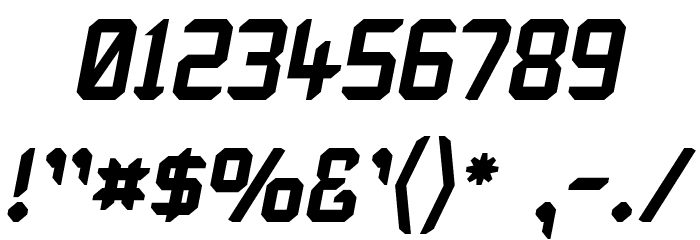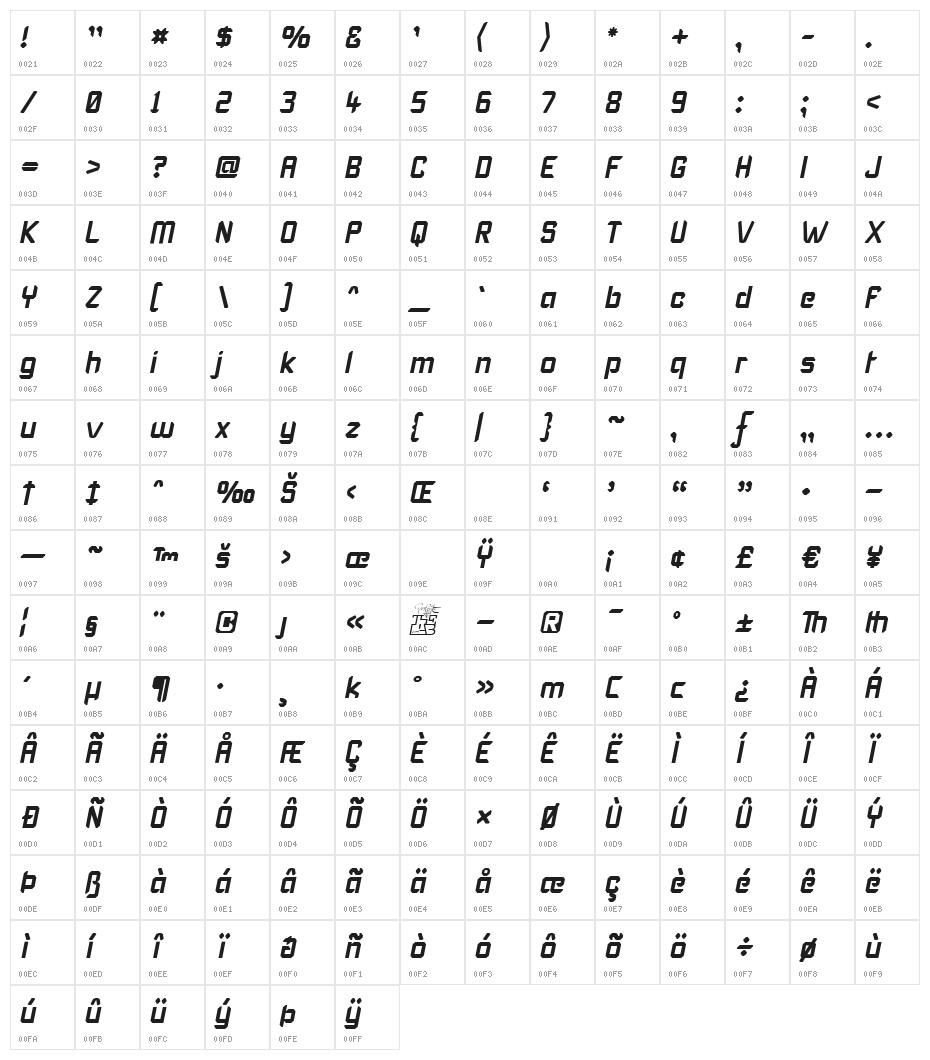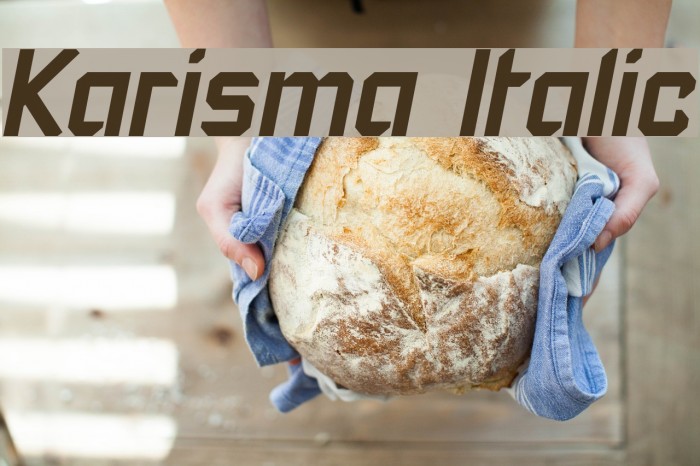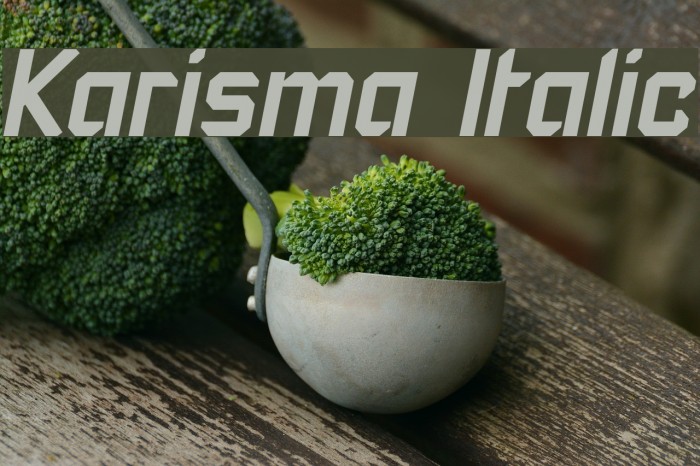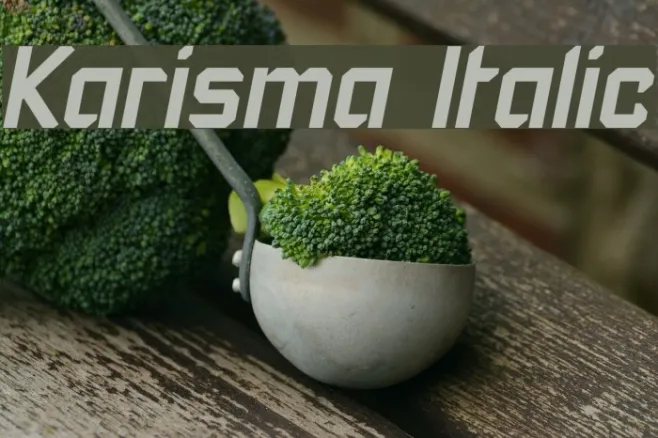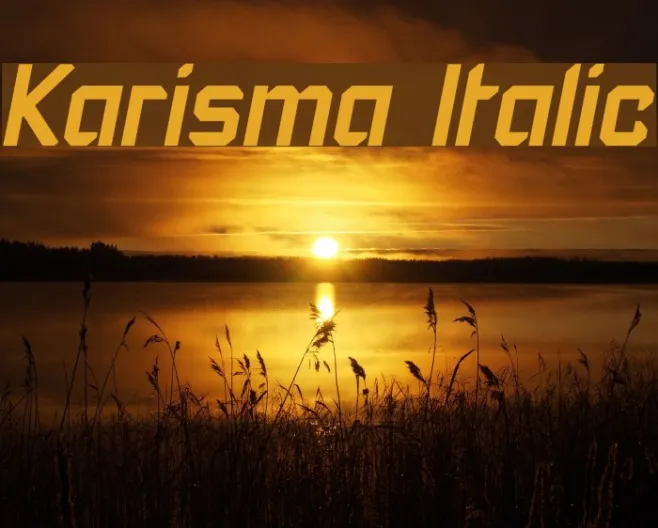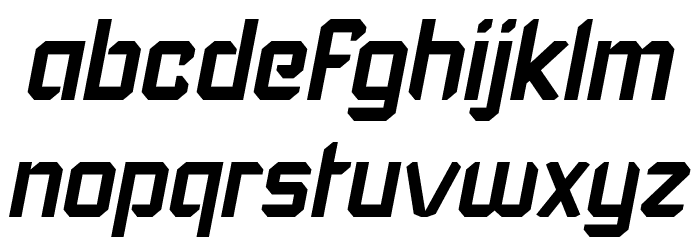
Karisma Italic Font
Karisma Italic Description
This font features a bold, italicized style with a modern and dynamic appearance. The characters are slightly slanted, giving a sense of motion and energy. The strokes are thick and consistent, providing a strong visual impact. The design includes sharp angles and clean lines, making it suitable for attention-grabbing headlines or titles. The uppercase and lowercase letters maintain a uniform width, contributing to a cohesive look. Numbers and special characters are designed with the same bold and angular style, ensuring consistency across all elements.
| Proposed Projects | Ideal for sports branding, dynamic posters, modern logos, and eye-catching headlines. |